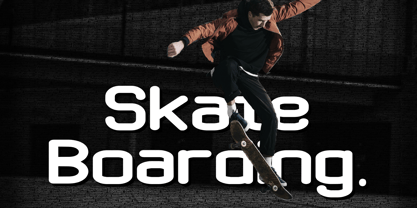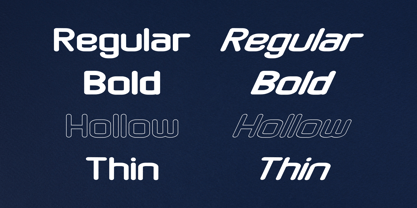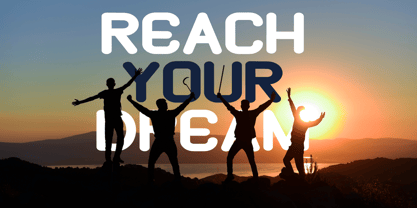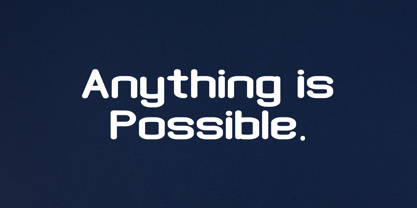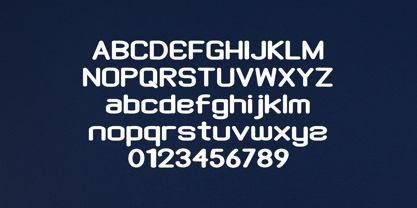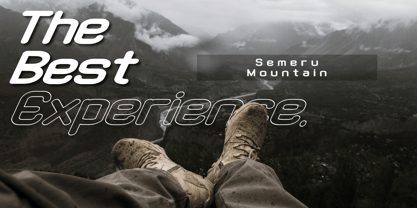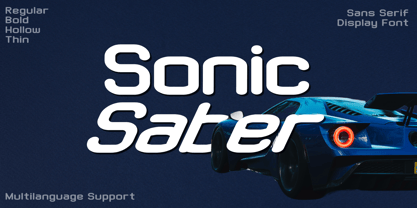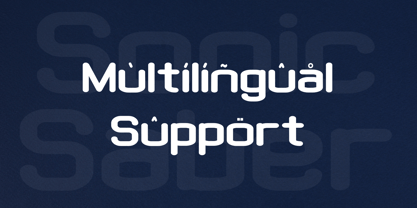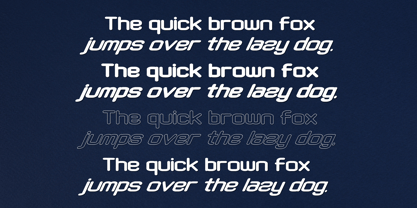
Sonic Saber
by Letterafandi Studio
The Sonic Saber Font Family was designed by Ahmad Afandi and published by Letterafandi Studio. Sonic Saber contains 8 styles and family package options.
Introducing "Sonic Saber", your new go-to sans serif font family. Exuding class and professionalism, Sonic Saber delivers clean, Its minimalistic charm lends itself perfectly to both high-powered corporate branding and compelling personal designs. This versatile font will elegantly streamline your creative endeavors. Experience Sonic Saber, where simplicity meets sophistication.
Sonic Saber Regular - Italic
Sonic Saber Bold - Italic
Sonic Saber Hollow - Italic
Sonic Saber Thin - Italic